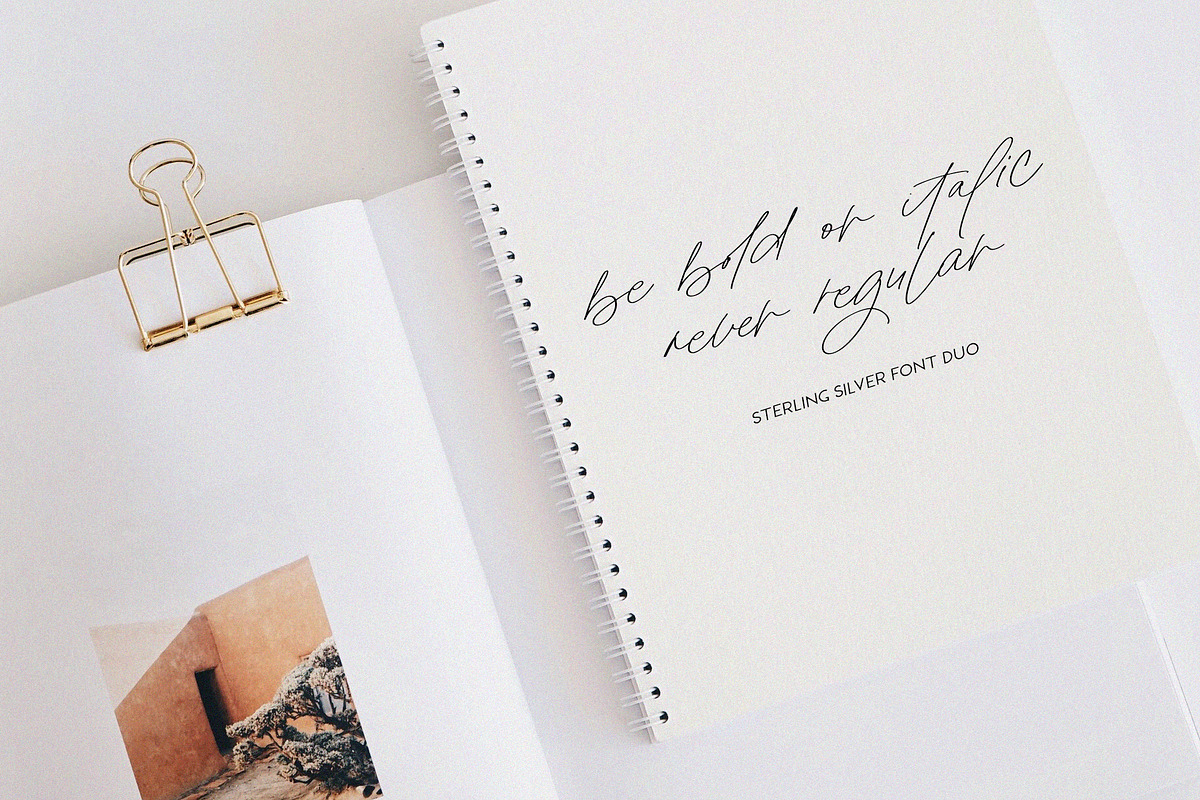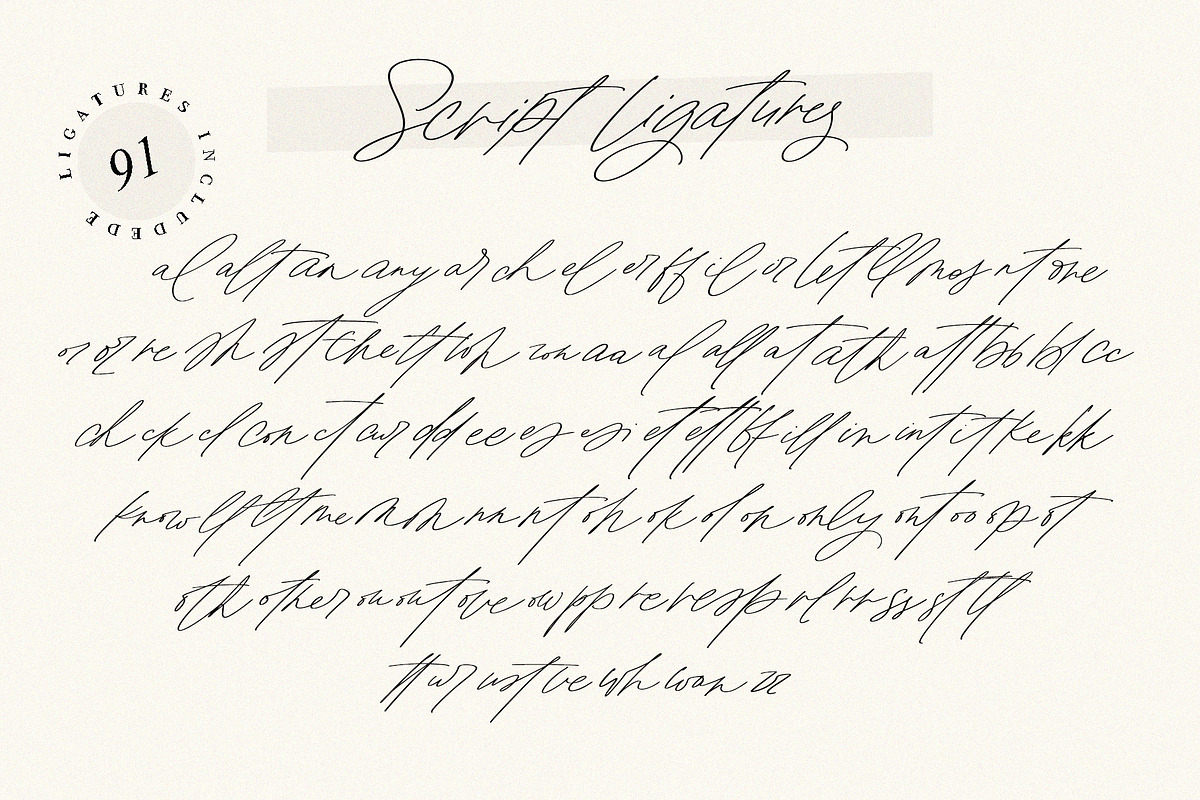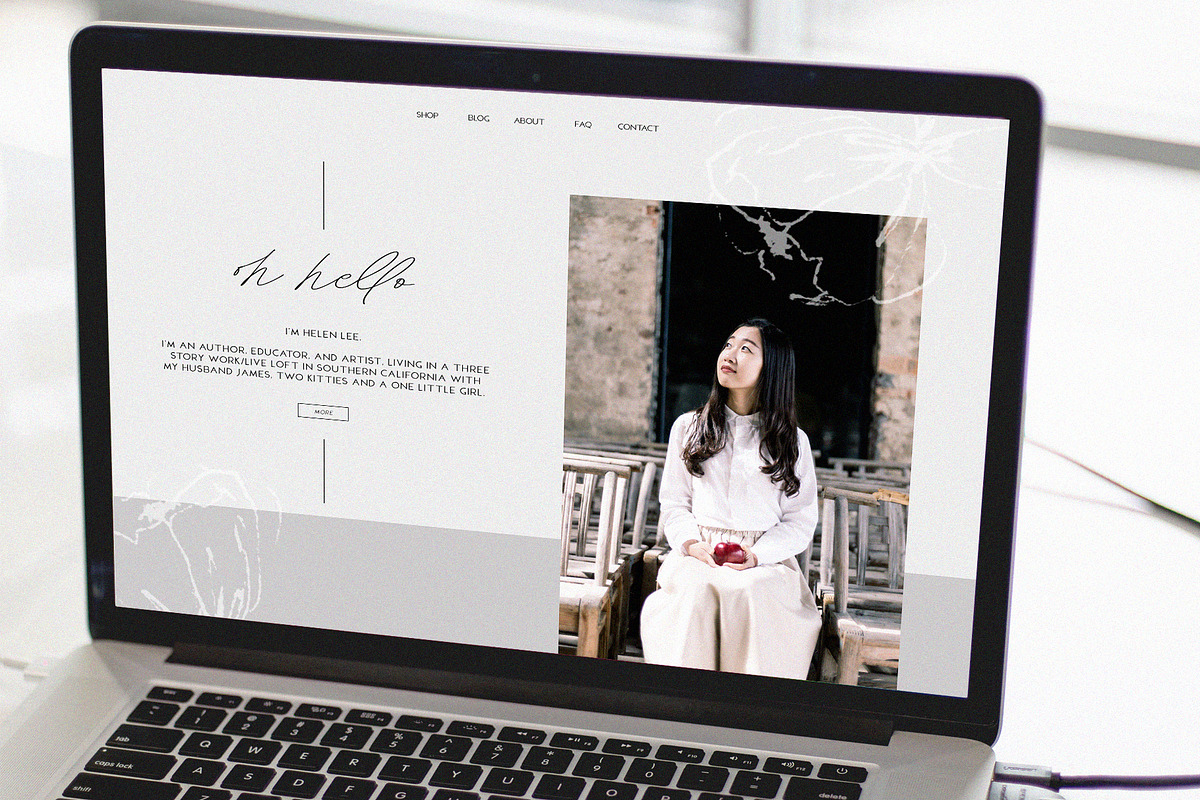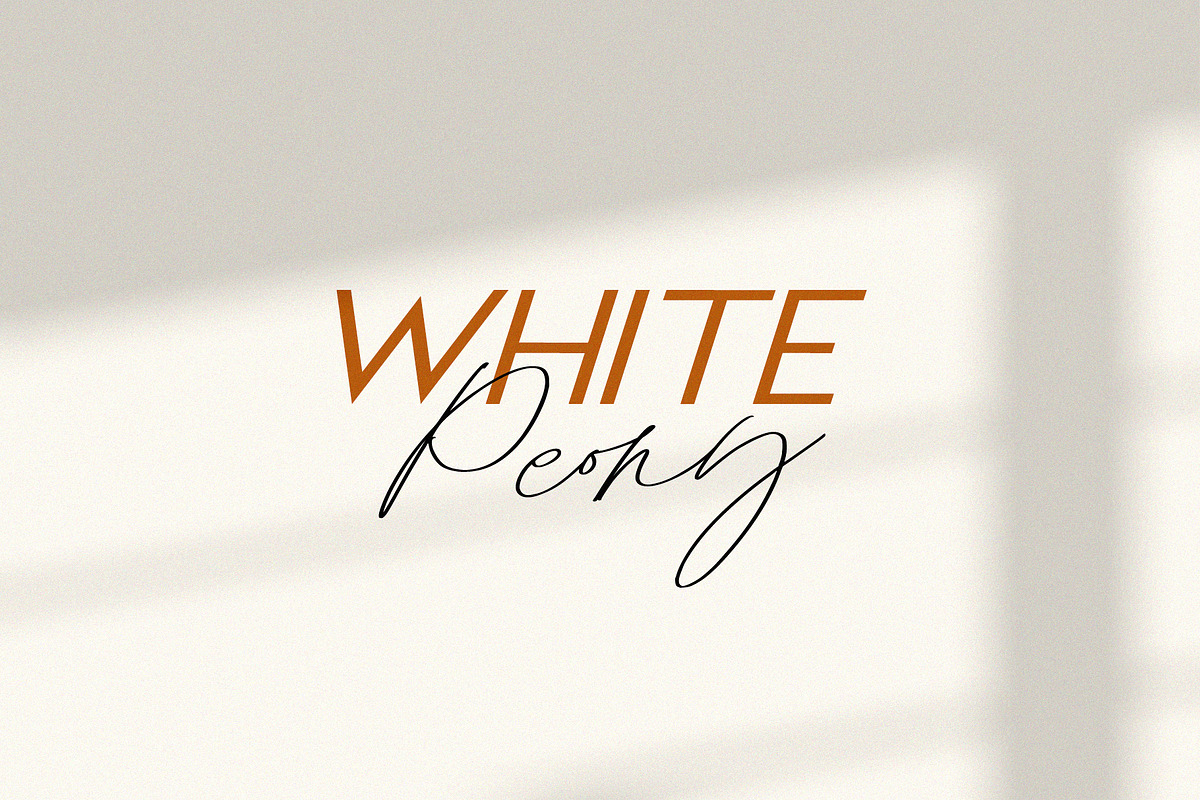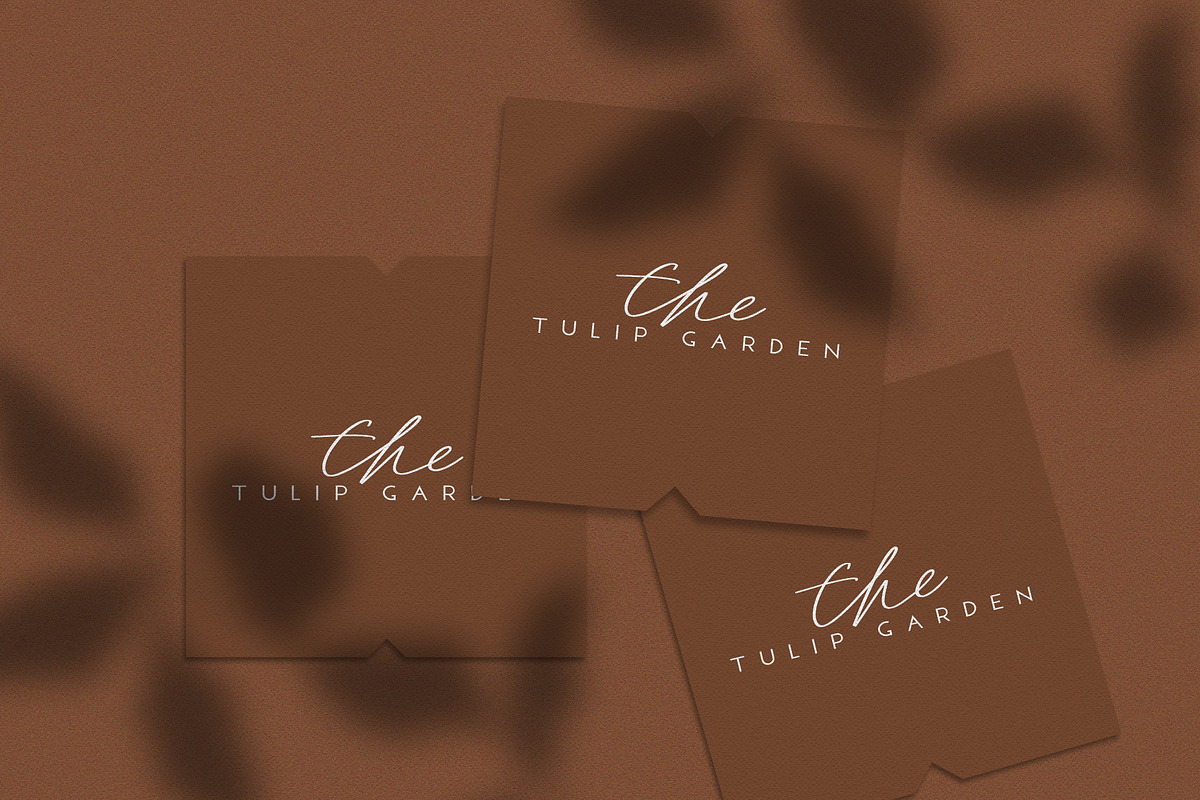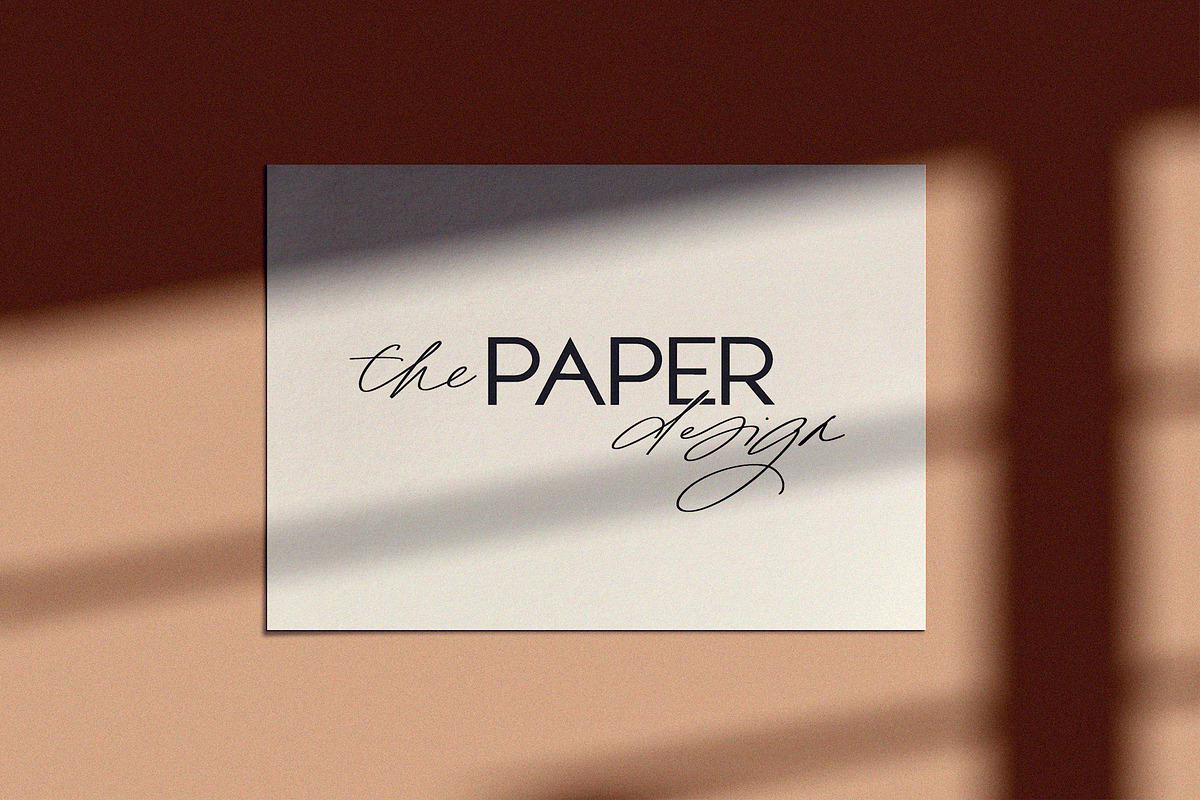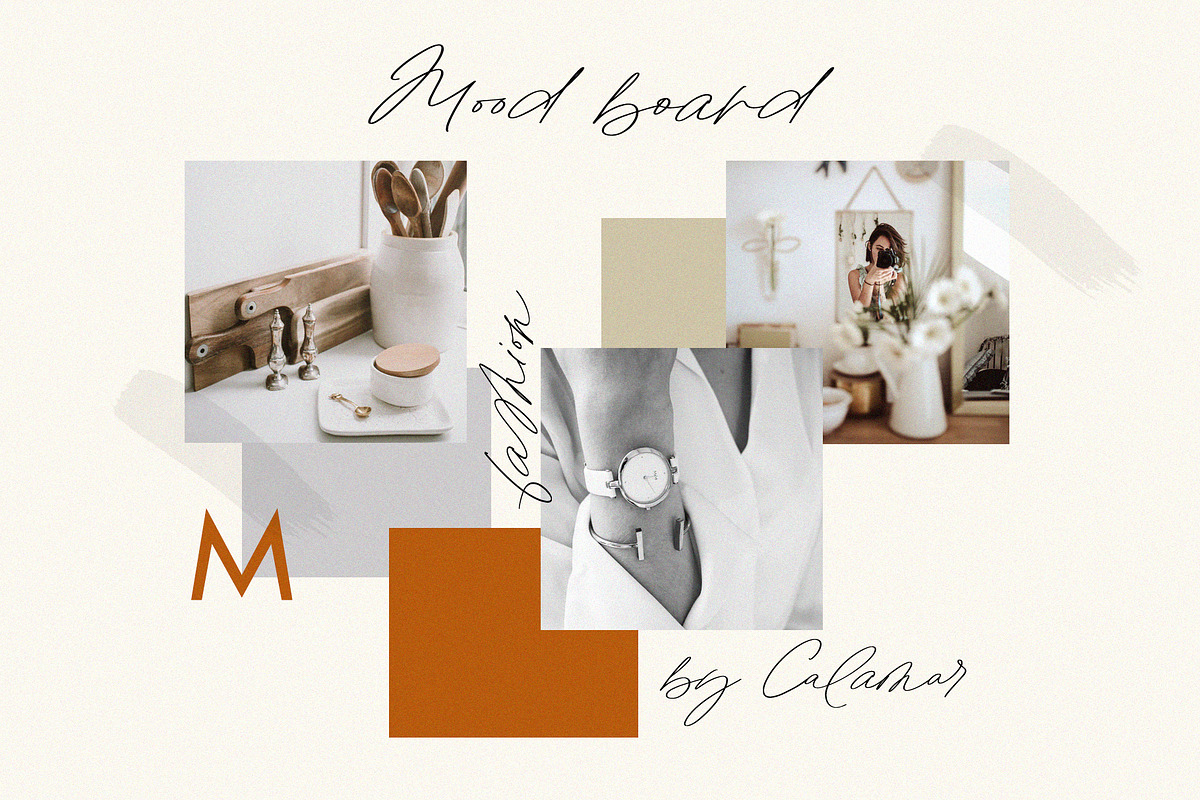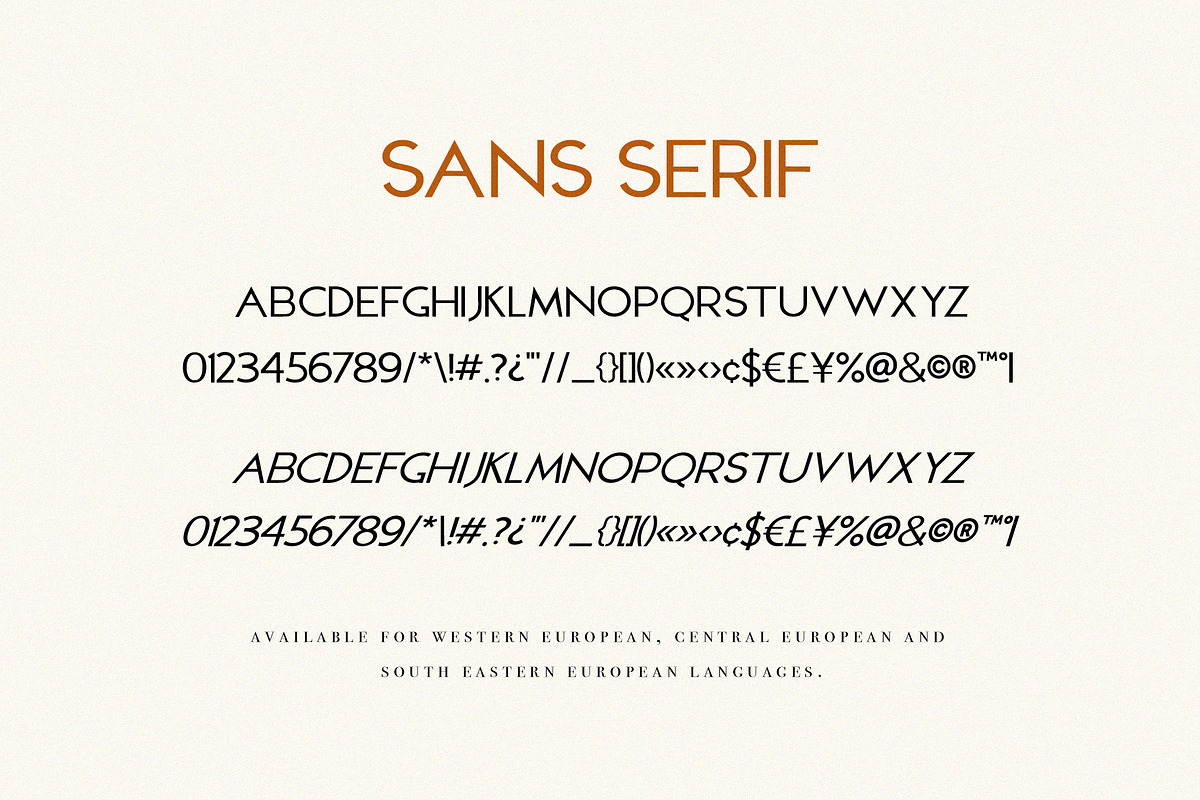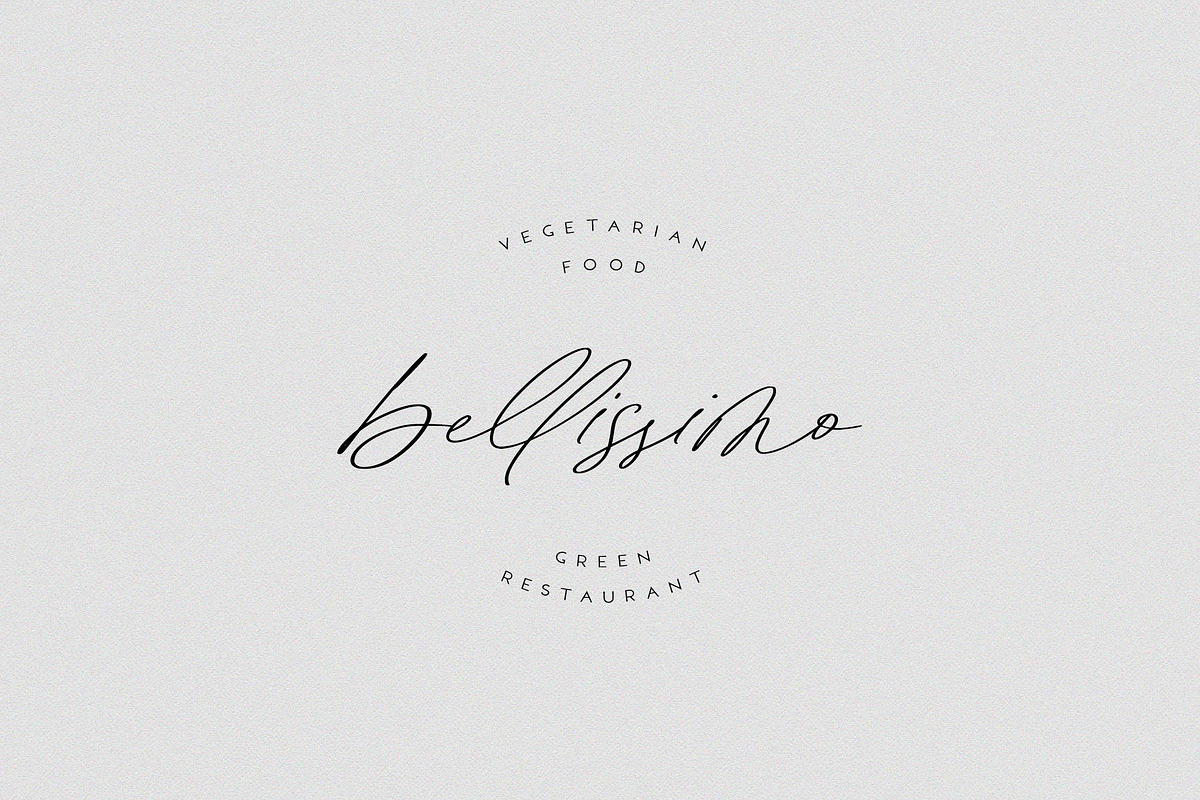
Monologues Font Duo
Say Hi! to Monologues Font Duo that combines two stunning and trendy fonts (signature script and sans serif caps).
Monologues Script features 91 ligatures and stylistic alternates for each lowercase letter giving you the options to look totally custom. Font also includes full set of uppercase and lowercase letters, multilingual symbols, numerals, punctuation.
Monologues Sans Serif is a classy high contrast font that contains only uppercase characters, numerals and punctuation. It has a regular and italic versions.
All fonts available for Western European, Central European and South Eastern European Languages. You can check your language typing characters in text box below.
Monologues Font Duo has a smooth texture, so would be perfect for all types of printing techniques.